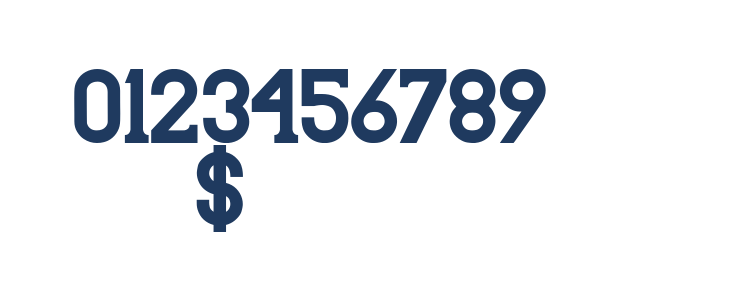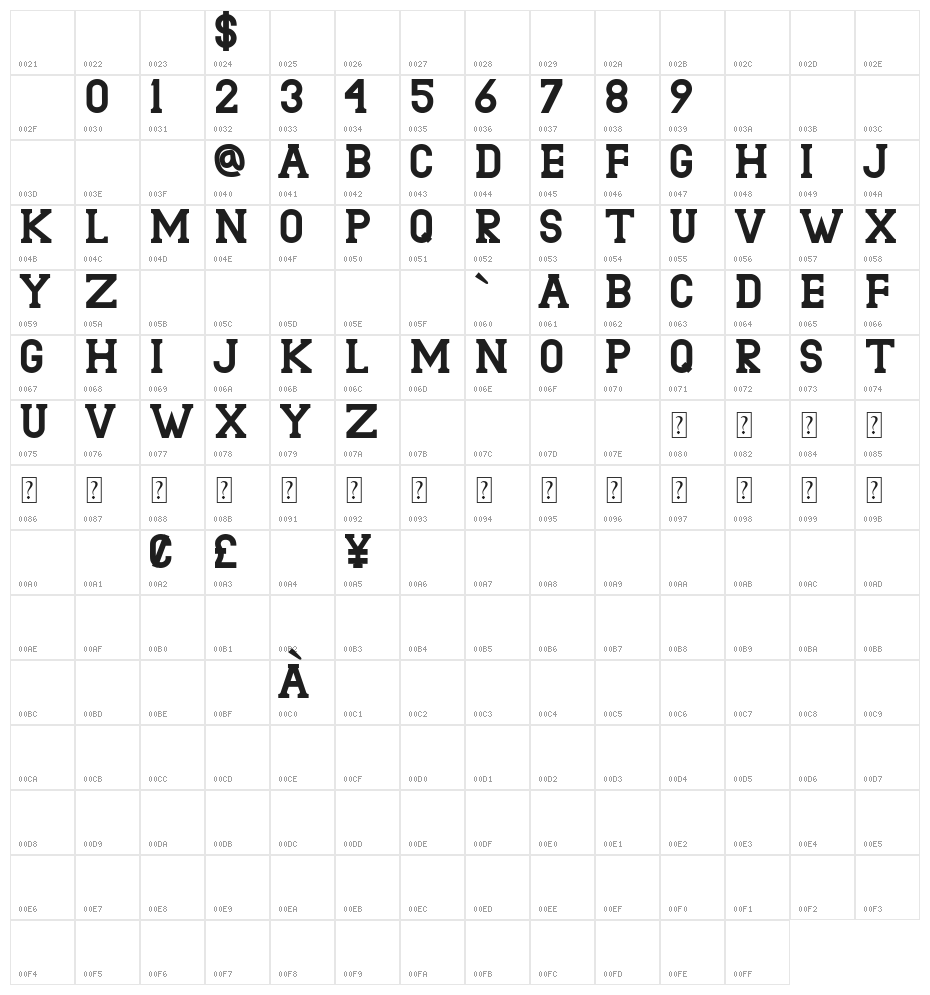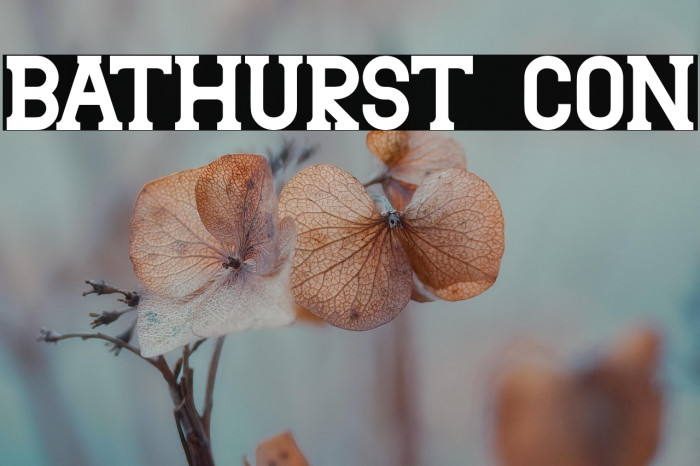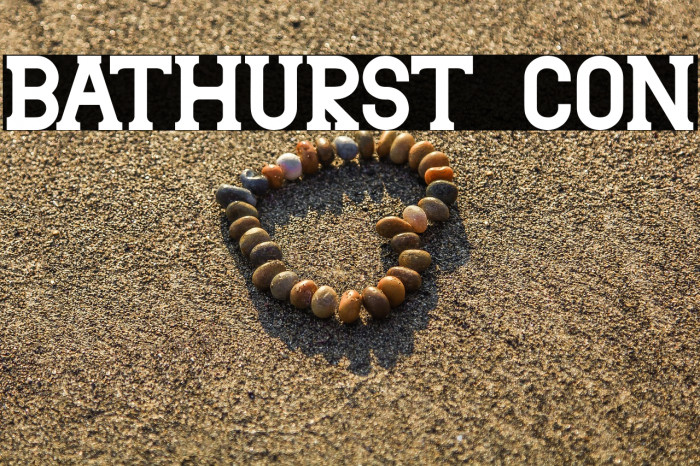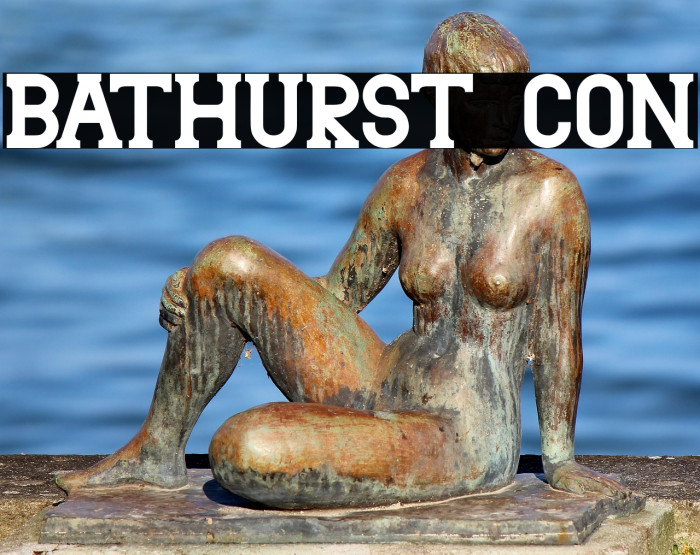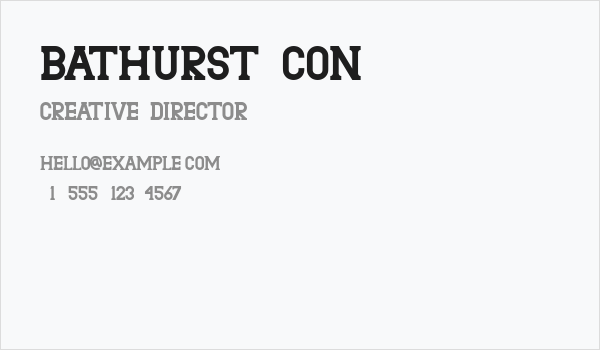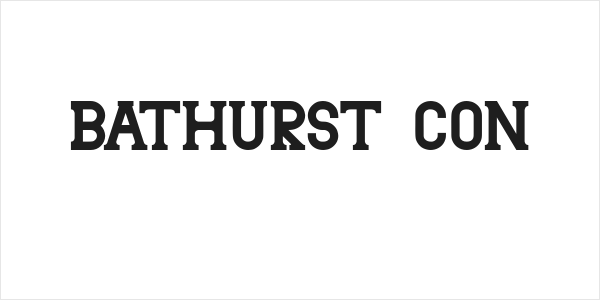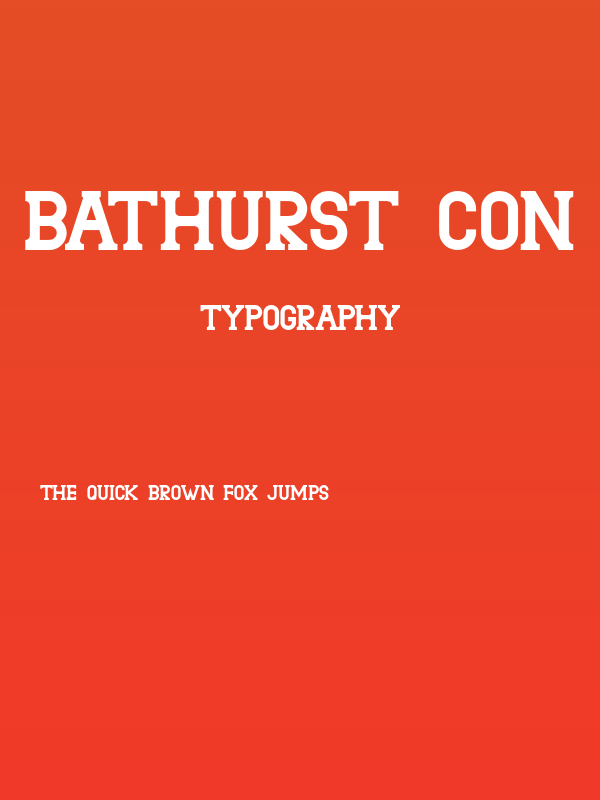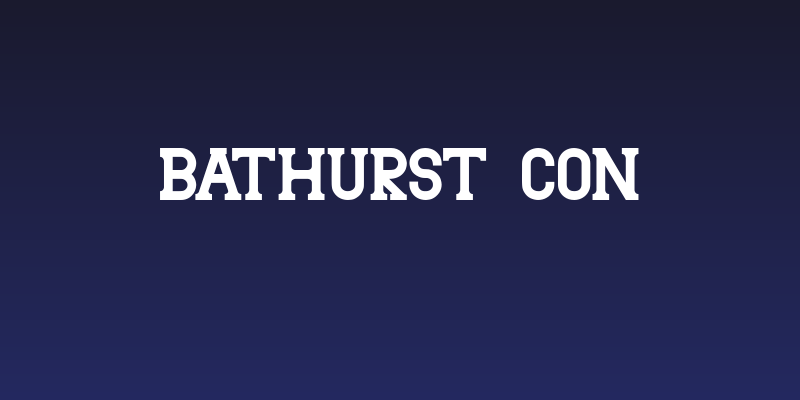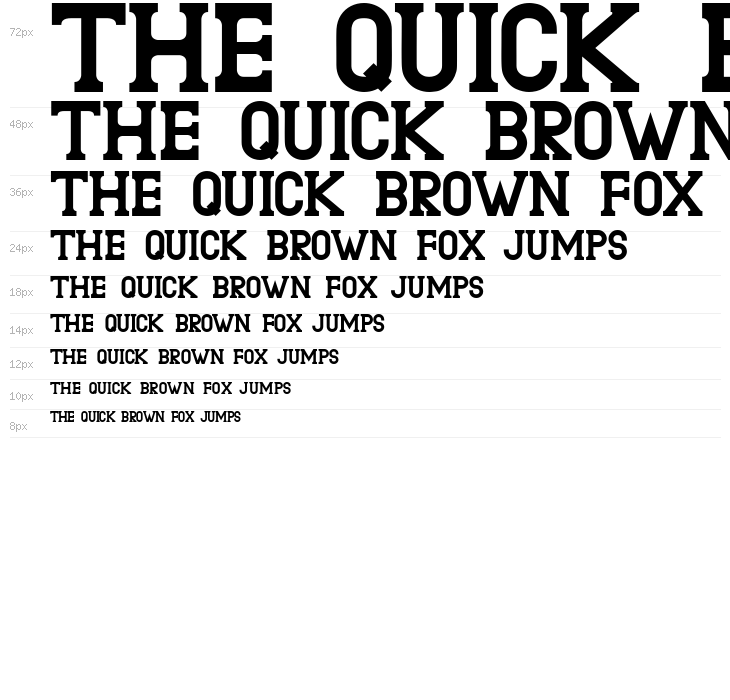
Bathurst con Font
Bathurst con Description
This font features bold, slab serif characters with a strong, commanding presence. The uppercase letters are robust and structured, with thick vertical lines and slightly thinner horizontal strokes, creating a balanced yet impactful look. The numerals are similarly bold, ensuring readability and emphasis. The special characters maintain the same weight and style, providing consistency across all glyphs. The overall design is reminiscent of vintage typefaces used in traditional print media, offering a sense of reliability and authority.
| Proposed Projects | Ideal for headlines, posters, branding, and any project requiring a strong, vintage aesthetic. |